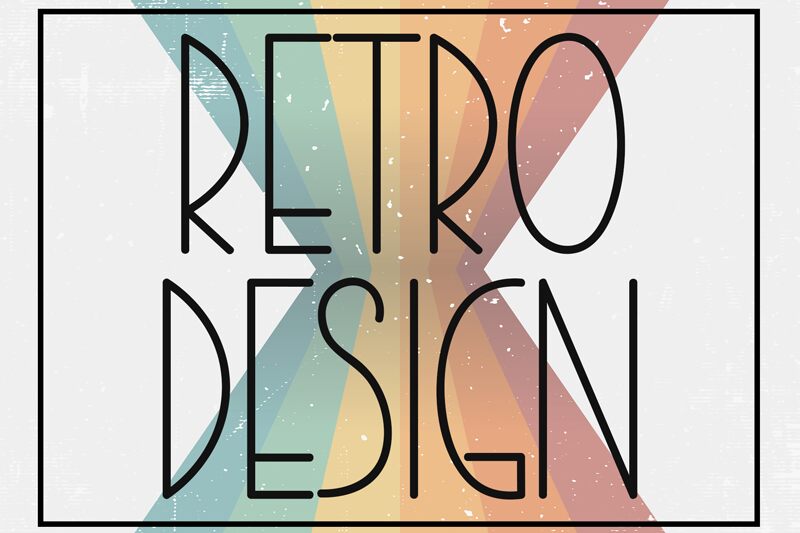
Retro Design
Retro Design font by Etik Fatimah is a free handwritten font that brings a nostalgic, vintage vibe with art deco influences, geometric shapes, and elegant simplicity. Its light construction and condensed style ensure sophistication while maintaining an effortlessly timeless appeal appropriate for countless artistic projects.
Whether you’re working on book covers, event invitations, posters, quotes, packaging designs, magazines covers or page layouts; Retro Design will do the trick. The unique character of the font also makes it perfect for branding projects such as logo design and business cards!